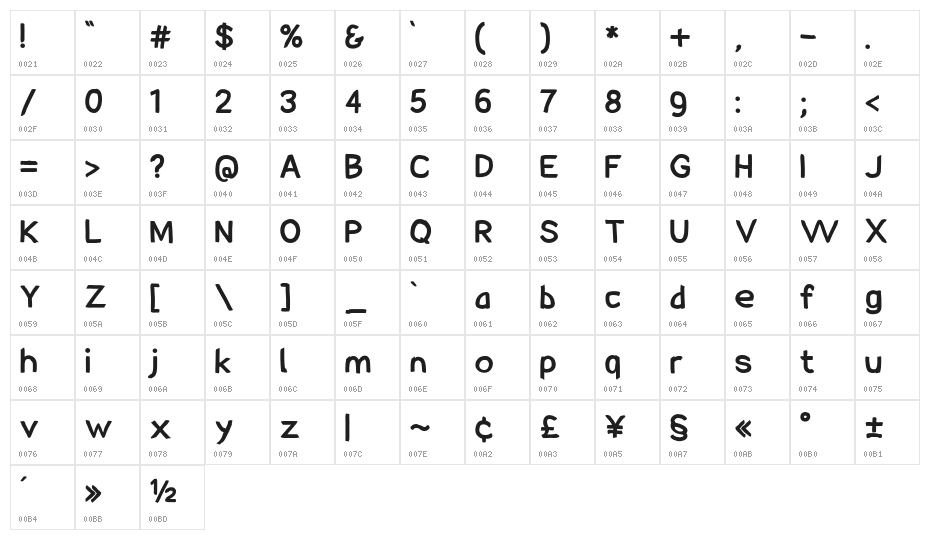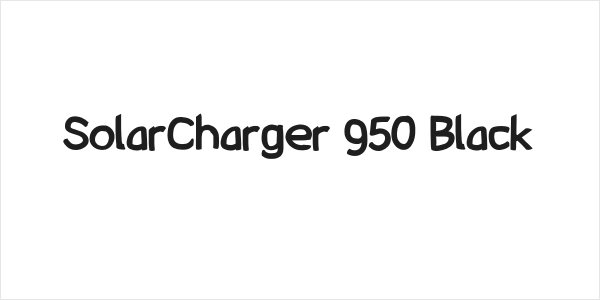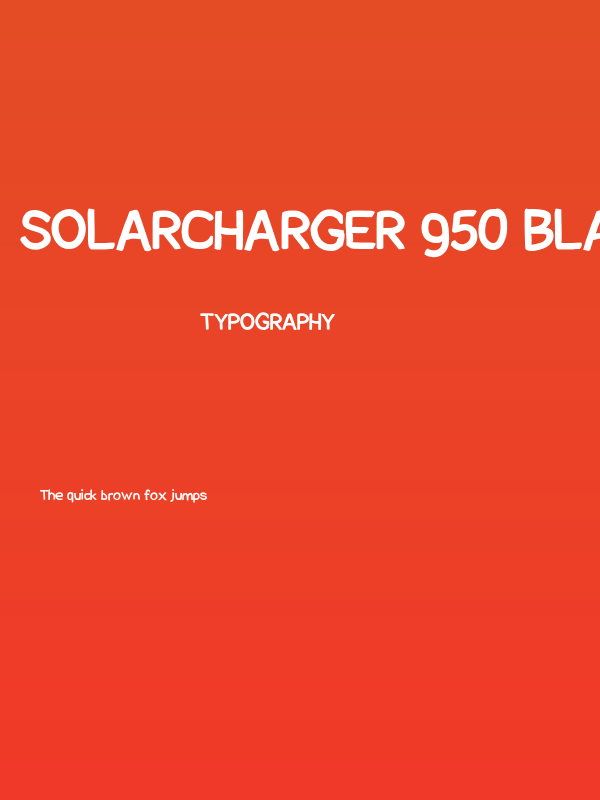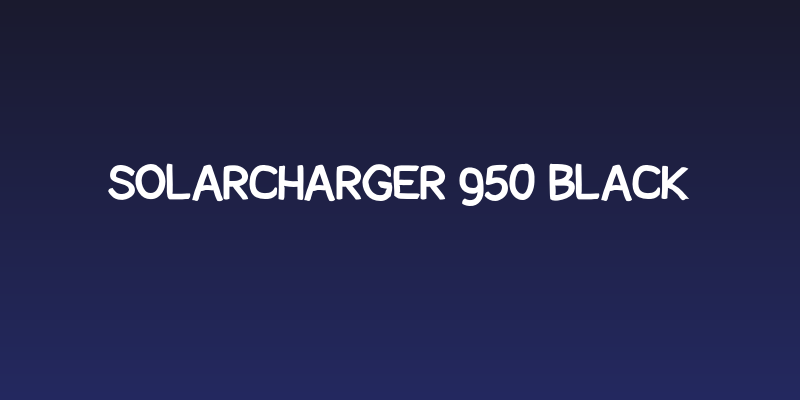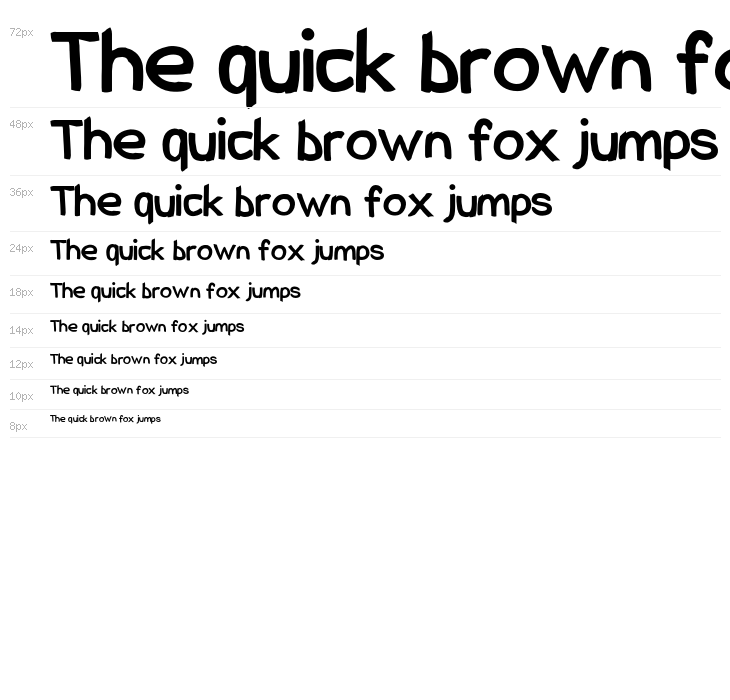
SolarCharger 950 Black Font
SolarCharger 950 Black Description
This font features a playful and bold design, characterized by its rounded edges and slightly irregular shapes. The uppercase letters are uniform in height, while the lowercase letters maintain a consistent baseline with a slight variation in size, adding a whimsical touch. The numerals are clear and bold, ensuring readability. Special characters are distinct and maintain the font's overall playful aesthetic. The font's style is approachable and friendly, making it suitable for informal and creative projects.
| Proposed Projects | Ideal for children's books, playful branding, casual invitations, and creative posters. |